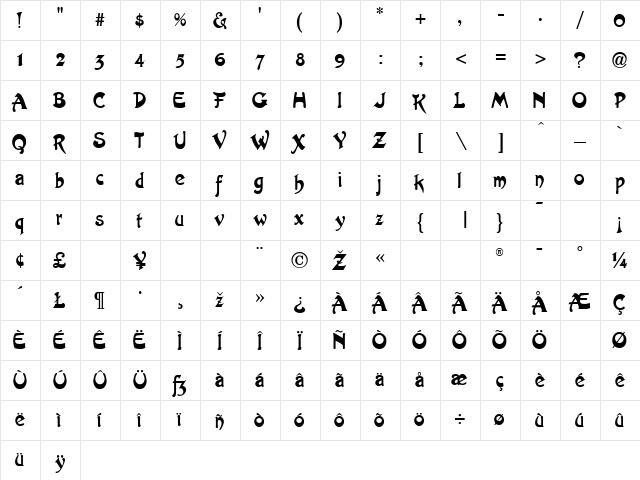
Artistik Regular Font Preview
Artistik Regular
Artistik Regular Font Details
Design Context for Artistik Typeface
Artistik is a composed and adaptable typeface that performs quietly and consistently across a wide range of design contexts.
Pro Tip: Use Artistik in both headline and body roles to test its range before committing to a single application.